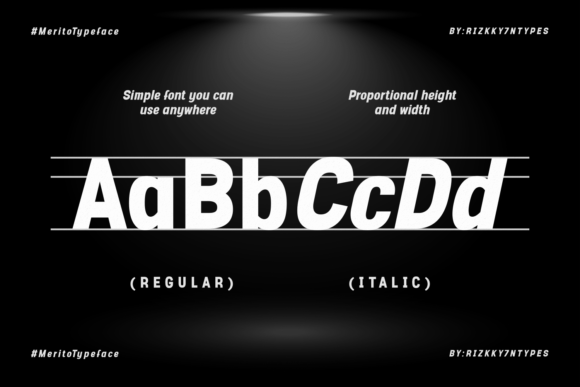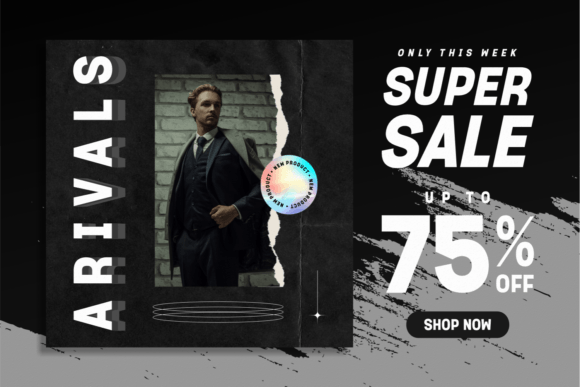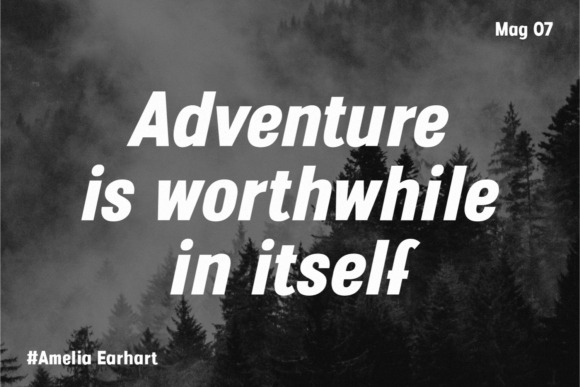
Introduction to Merito Font
Merito is a cool and trendy display font.
Whatever the topic, this font will be a wonderful asset to your font library, as it has the potential to enhance any creation .
Key Features of Merito Font
Why Choose Merito Font?
Merito Font offers exceptional quality and versatility, making it a valuable addition to your design toolkit. Whether you’re creating for personal projects or commercial use, Merito Font delivers professional results.